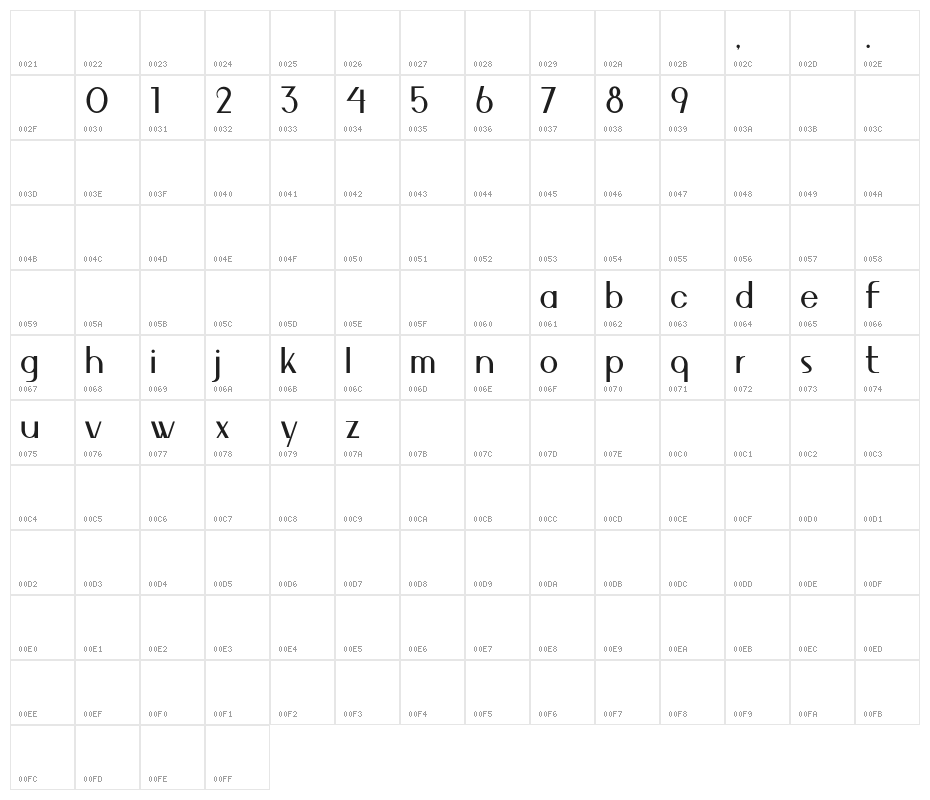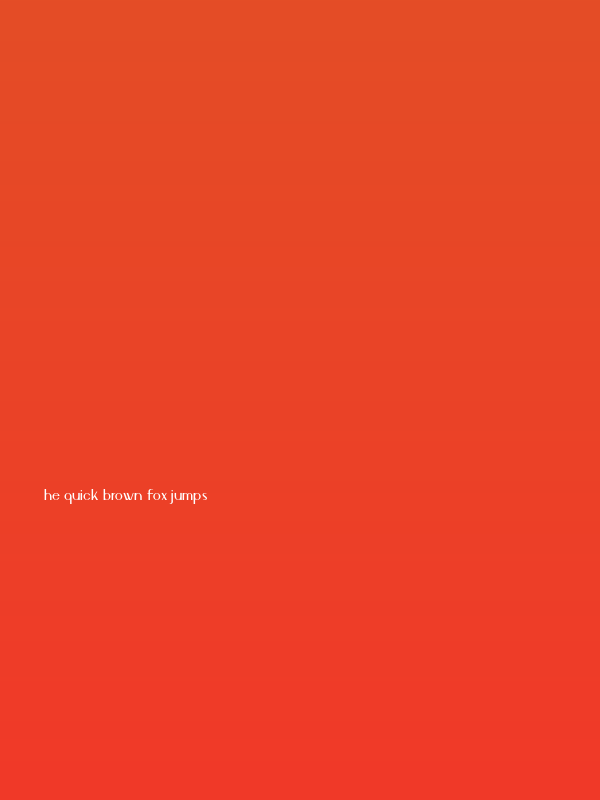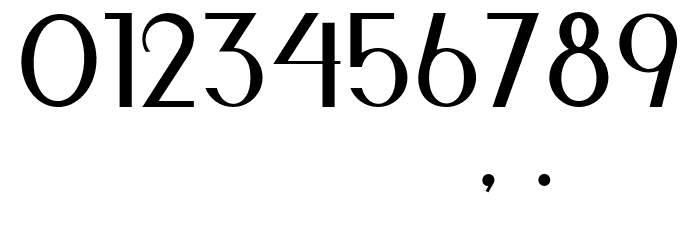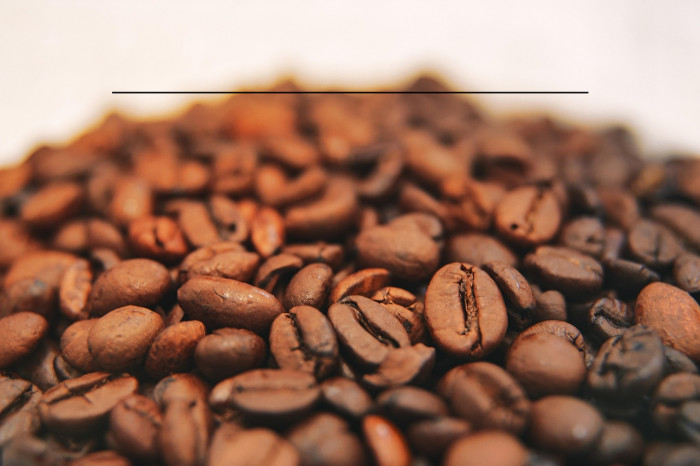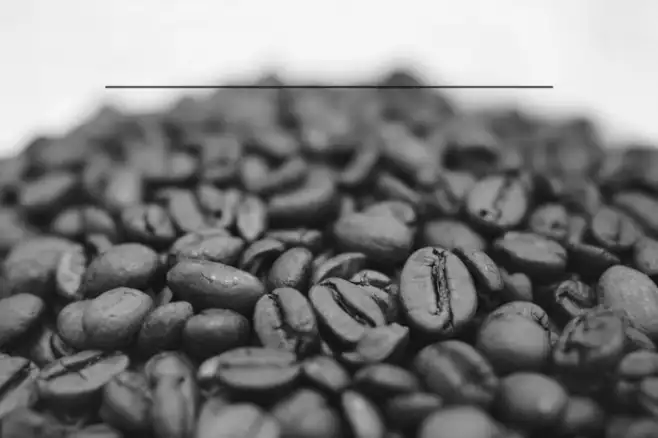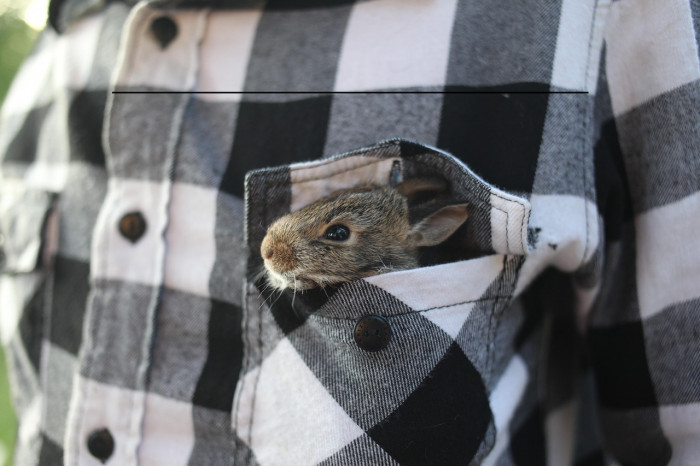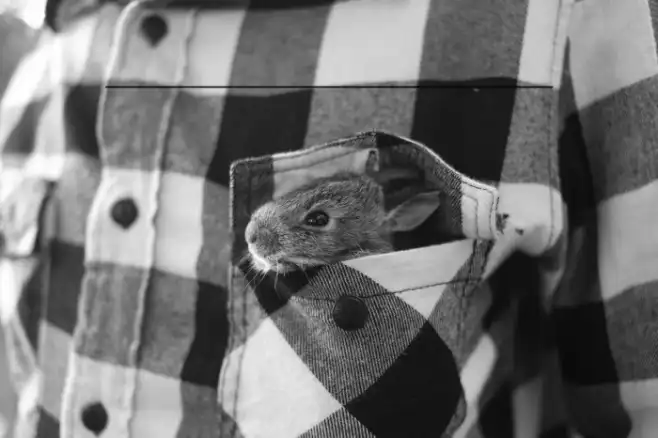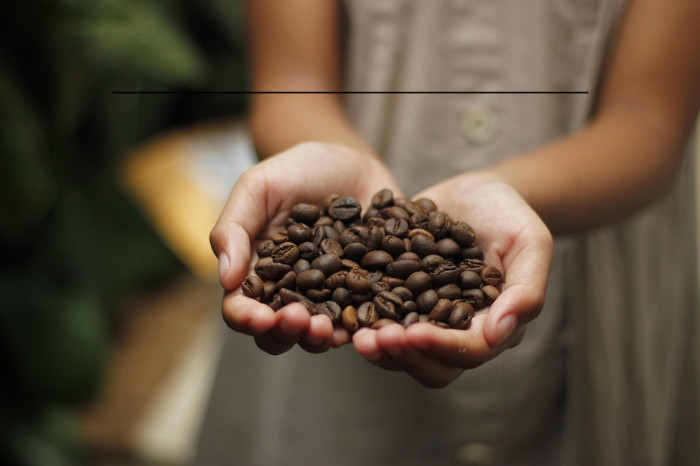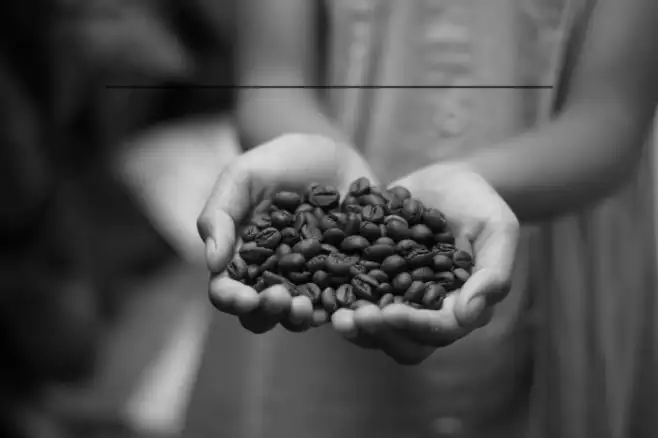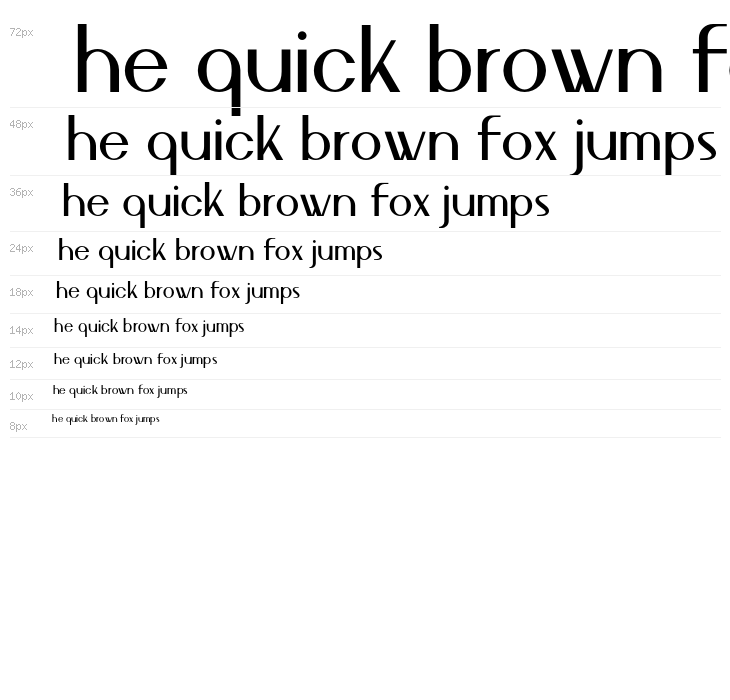
MagasDemo-Regular Font
MagasDemo-Regular Description
This font features a modern and sleek design with clean lines and a geometric structure. The characters are well-balanced, offering a harmonious blend of curves and straight edges. The lowercase letters have a uniform height, while the uppercase letters stand out with a slightly taller stature. The numerals are distinct and easy to read, maintaining the font's overall aesthetic. The font's simplicity and elegance make it versatile for various design applications.